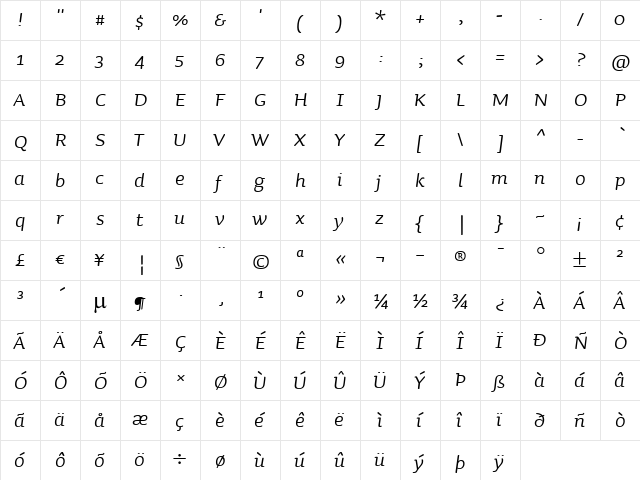
Sauna-Italic Regular
Design Context for Sauna-Italic Typeface
Sauna-Italic takes a measured approach to typography — its balanced proportions and neutral character make it a reliable workhorse for both digital and print work. The dynamic lean of this cut emphasises speed and emphasis in any layout.
Pro Tip: Use Sauna-Italic for emphasis, pull quotes, and subheadings where its slanted energy can add rhythm to the layout.